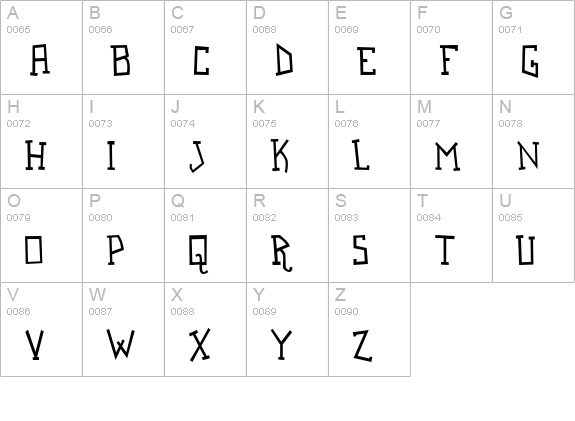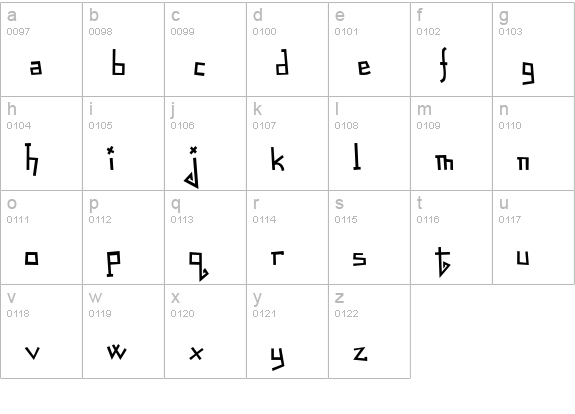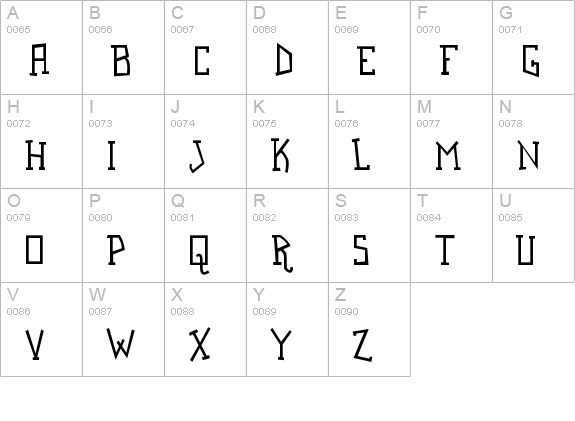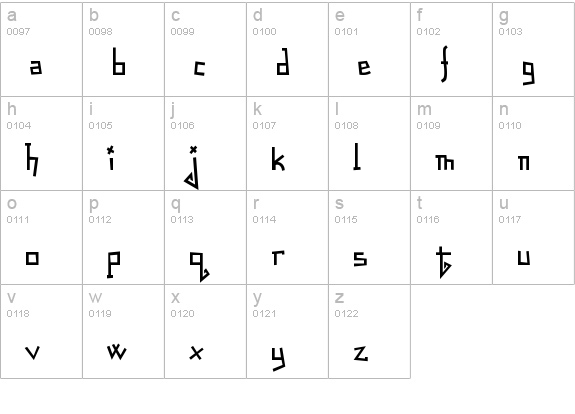
Spastic Nerfbag Font Details
Introducing the dynamic and captivating Spastic Nerfbag font - a true gem in the world of typography. With its bold, energetic strokes and edgy design, this font exudes a sense of modernity and creativity that is sure to catch the eye. Spastic Nerfbag is not just your ordinary font - it is a statement piece. Its unique and playful character is perfect for adding a touch of personality to any project, whether it be a logo, poster, or branding materials. The versatility of this font allows it to seamlessly adapt to a variety of themes and styles, making it a must-have for any designer or creative enthusiast. But what sets Spastic Nerfbag apart from the rest? Well, the answer is simple - it's free! That's right, this extraordinary font is freely available to download at FontsMarket.com. We believe that creativity should never be limited by budget constraints, which is why we have made this exceptional font accessible to all. So, whether you're a seasoned professional or an aspiring designer, take advantage of the opportunity to enhance your projects with the captivating Spastic Nerfbag font. Let your imagination run wild and create stunning designs that effortlessly stand out from the crowd. Download this exceptional font for free today at FontsMarket.com and let your creativity soar to new heights.